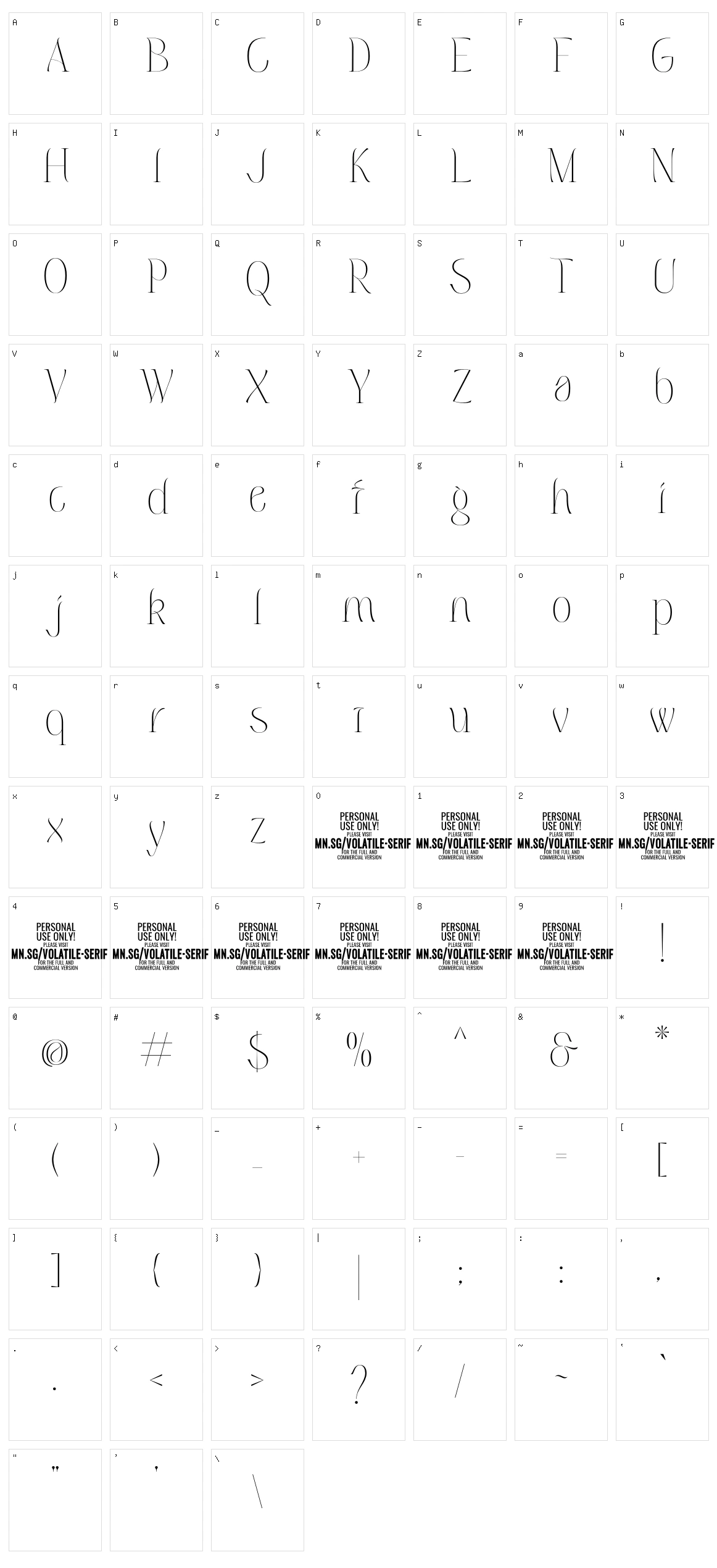
Volatile Serif, designed by Mans Greback, is a luxurious and romantic typeface that exudes an air of softness and delicate beauty. Its flowing, liquified forms, and delicate swirls evoke feelings of empathy, creating a sense of connection and warmth. This font is perfect for high-end projects that demand a touch of fine elegance.
Inspired by the gentle movements of water, the designer sought to capture the essence of fluidity in Volatile Serif. The result is a typeface that feels alive, as if its character is organically creating the word, making it a perfect choice for luxury brands, romantic designs, and storytelling.
The font is built with advanced OpenType functionality and has a guaranteed top-notch quality, containing stylistic and contextual alternates, ligatures, and more features; all to give you full control and customizability. It has extensive lingual support, covering all Latin-based languages, from Northern Europe to South Africa, from America to South-East Asia. It contains all characters and symbols you'll ever need, including all punctuation and numbers.